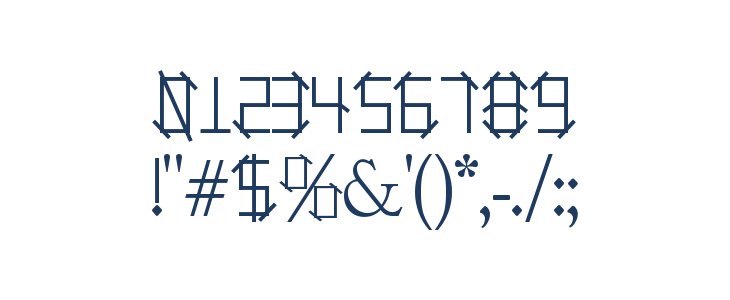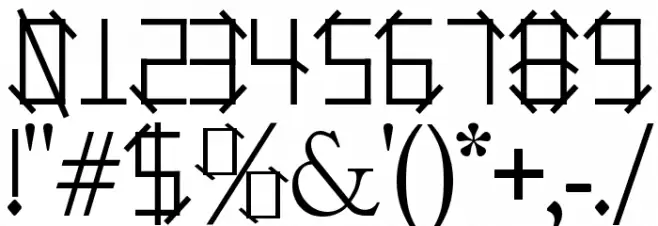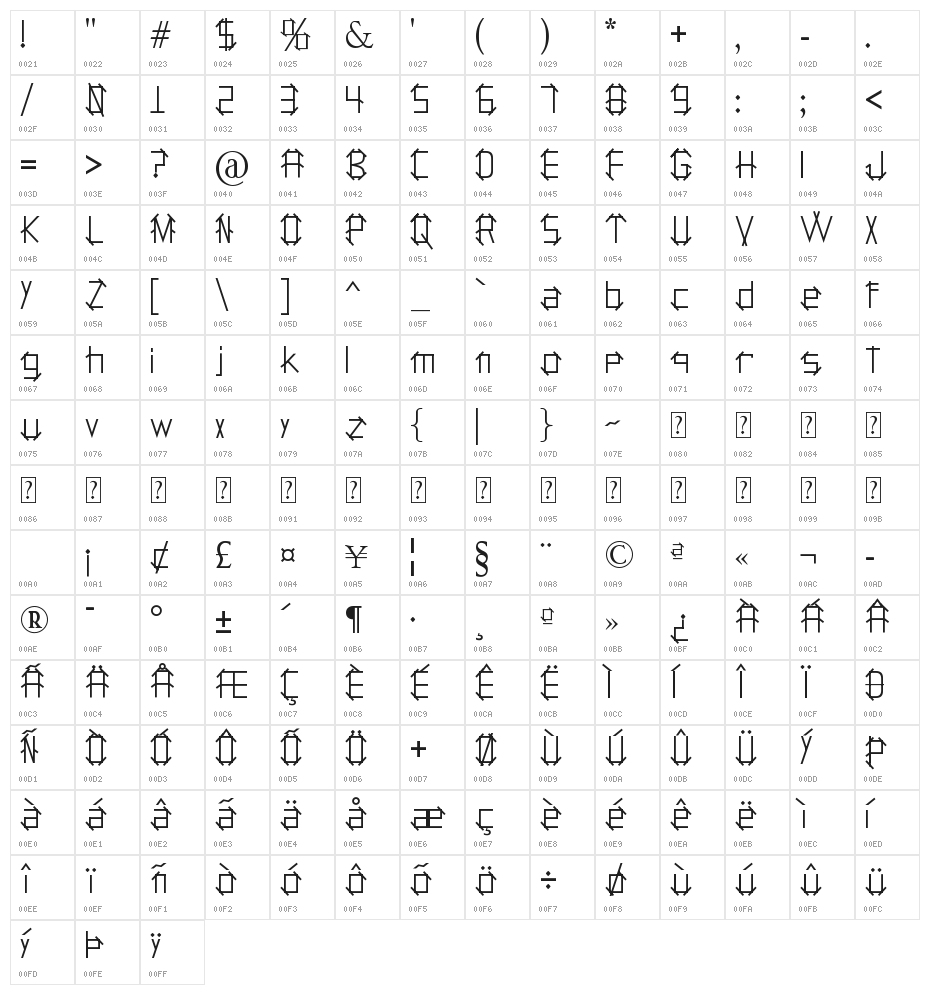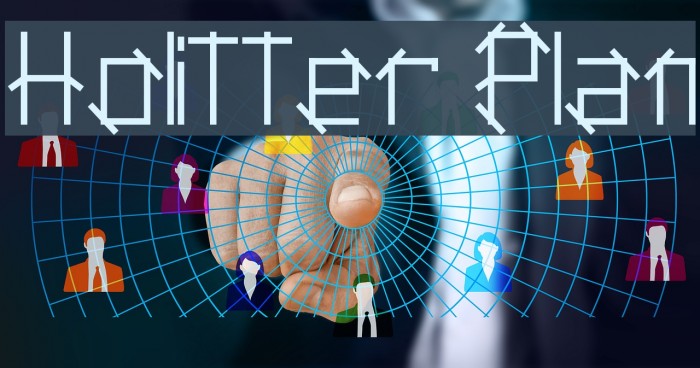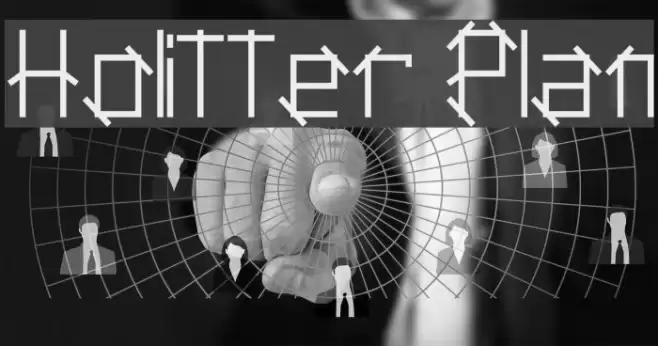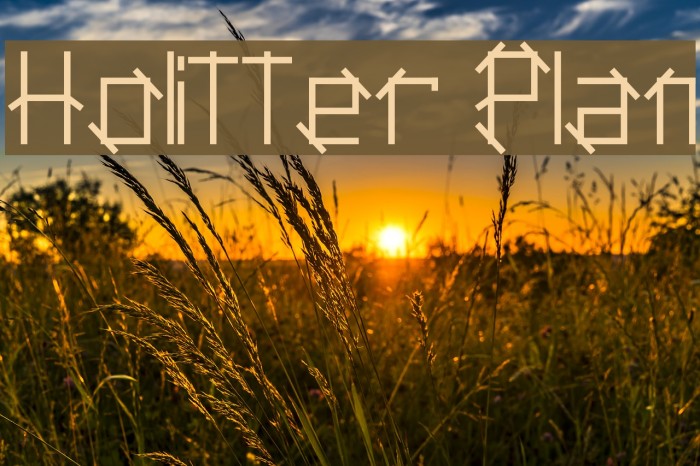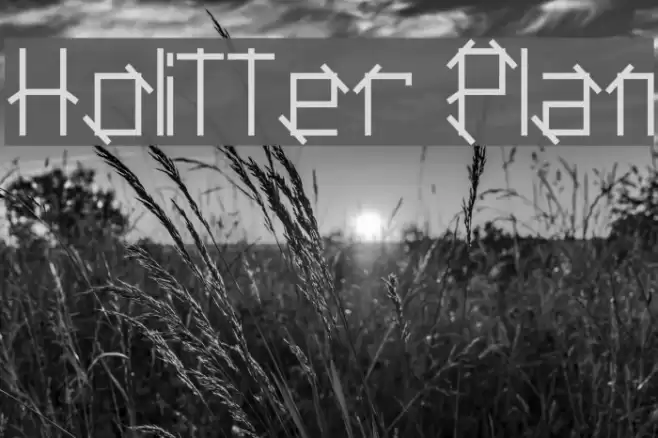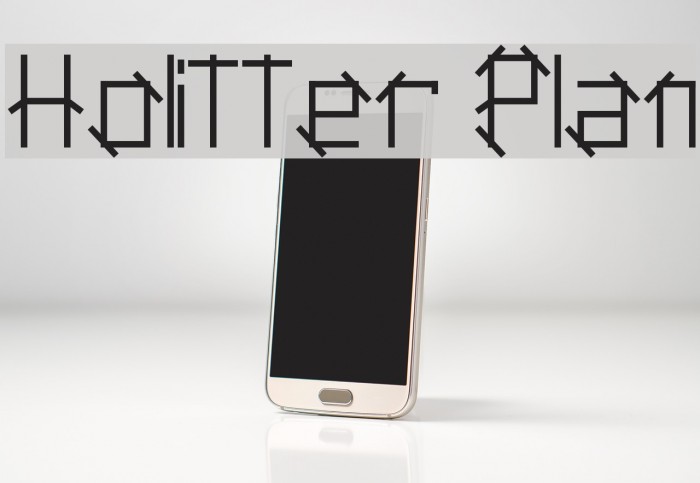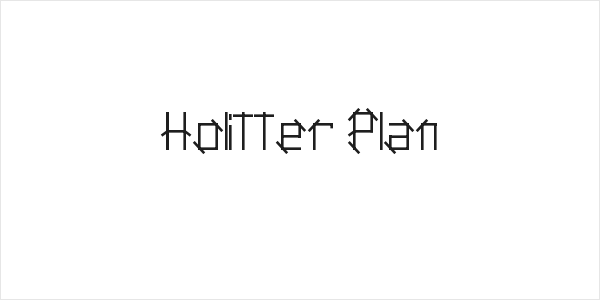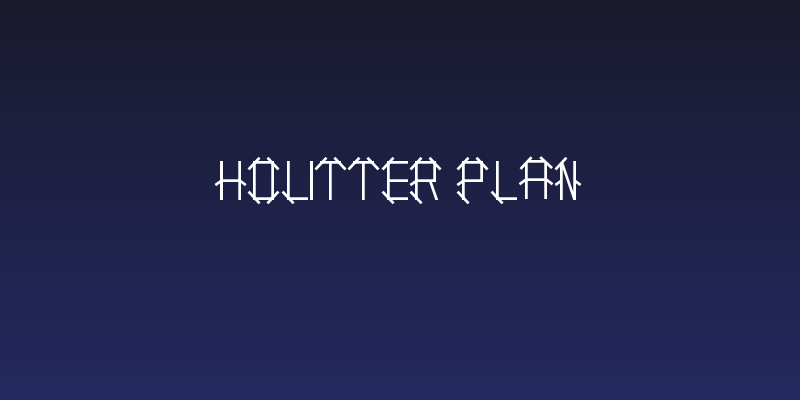
Holitter Plan Font
Holitter Plan Description
This font features a unique and striking design characterized by angular, geometric shapes with arrow-like extensions on each character. The letters are constructed with straight lines and sharp corners, giving it a futuristic and mechanical appearance. The uppercase and lowercase letters maintain a consistent style, with the lowercase being slightly smaller and more compact. Numbers and special characters follow the same design principles, ensuring uniformity across the font. The overall look is bold and attention-grabbing, making it suitable for projects that require a modern and edgy aesthetic.
| Proposed Projects | Ideal for technology-themed designs, video game graphics, sci-fi posters, and branding for innovative products. |